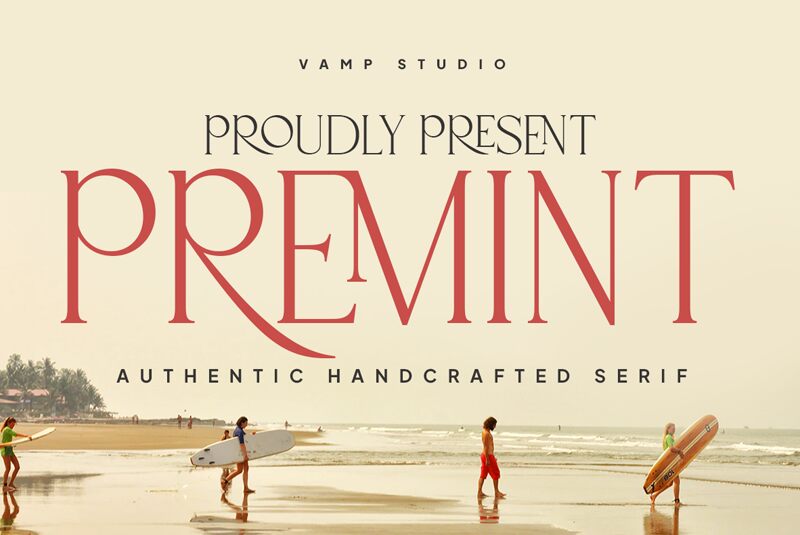
Premint font designed by VampStudio is a free serif font that captures the essence of elegance and sophistication. Handcrafted with a touch of artistic flair, it evokes a nostalgic yet classic feel that is visually striking. This versatile font is perfect for branding purposes, offering a refined and polished look that stands out.
Ideal use cases for Premint include logos, branding projects, product packaging, posters, apparel, invitations, magazines, films, headlines, logos, album covers, and books.